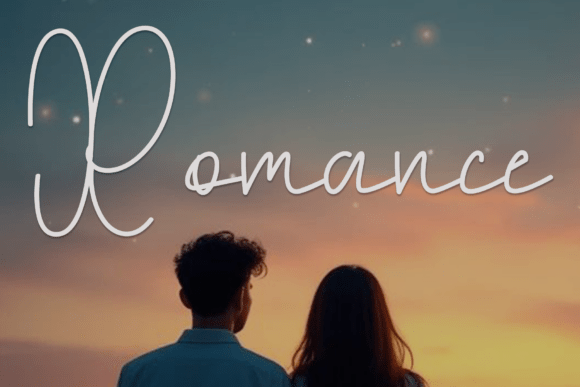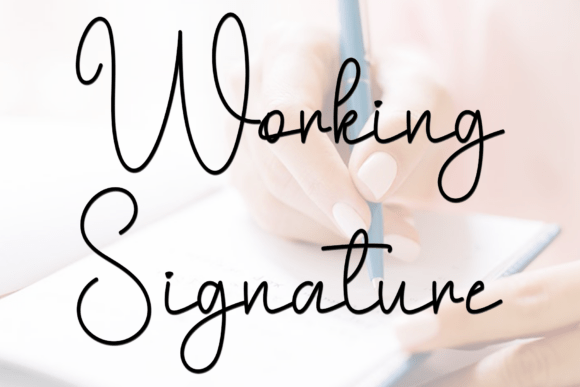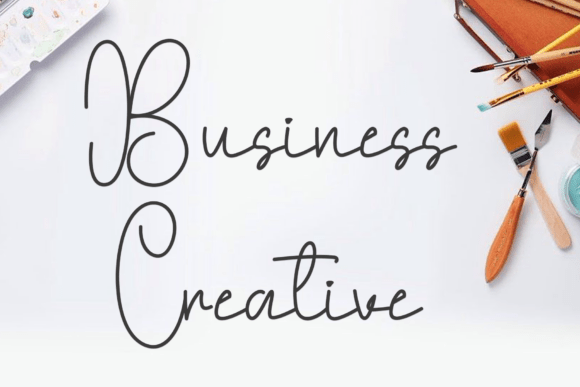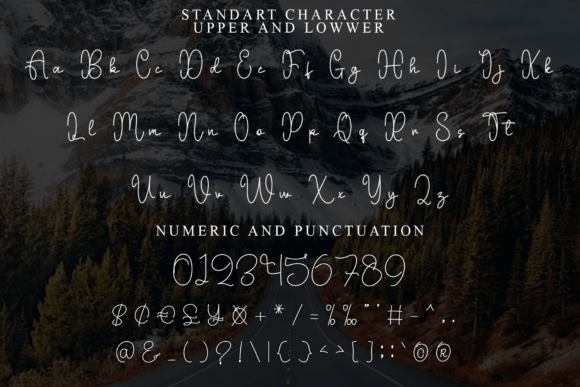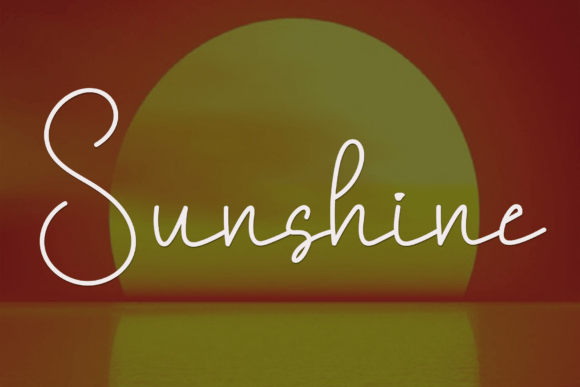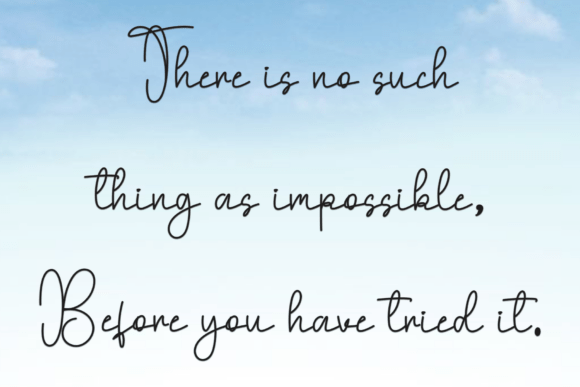
Unleash Your Creativity with the Perfect Handwritten Touch
Have you ever been in the midst of brainstorming, and suddenly, the perfect idea strikes you? The words start flowing, and you can’t help but jot them down as fast as you can. That’s exactly what inspired the creation of the Angela Handwriting Font – a clean and casual handwritten font that captures the essence of handwritten notes and adds a touch of modern elegance to any design.
As a designer, you’re always on the lookout for the perfect font to convey your message. The Angela Handwriting Font is an invaluable asset for any creative project, from journaling and branding to logos and social media posts. Its smooth curves and legible strokes make it an ideal choice for designers who want to add a personal touch to their work.
Key Features of Angela Handwriting Font
- Font Style: Handwritten, Casual, Script
- Unique Characteristics: Authentic handwritten feel, natural flow, and subtle variations in letterforms
Angela Handwriting Font Review
I recently had the chance to work with the Angela Handwriting Font, and I must say it’s a unique and charming addition to any design project. ✨ One of the things that stands out about this font is its high level of customization options. The font has multiple styles, from casual to formal, which allows designers to match the tone and feel of their project perfectly.
Another aspect that I appreciate about the Angela Handwriting Font is its high-quality rendering. The font is designed to mimic real handwriting, and it shows. The curves and lines are smooth, and the texture is subtle yet effective. ✨
While the Angela Handwriting Font is a great choice for many projects, there are some limitations to consider.
- ⚠️ The font may not be suitable for projects that require a lot of text, as the custom nature of the font can make it difficult to read at larger font sizes.
- ⚠️ The font’s high level of customization can also make it more difficult to work with, as designers may need to spend more time adjusting settings to get the desired look.
Overall, I’m impressed with the Angela Handwriting Font, and I think it’s a great choice for designers looking to add a touch of personality to their projects. With a little practice and patience, the font can be a powerful tool for creating unique and engaging designs.
Use the Angela Handwriting font for creative and personal projects, such as:
Personalized invitations and stationery
Wedding and event graphics
Handwritten-style quotes and typography
For best results, use the font at a larger size and with a clear background to showcase the unique handwriting style.